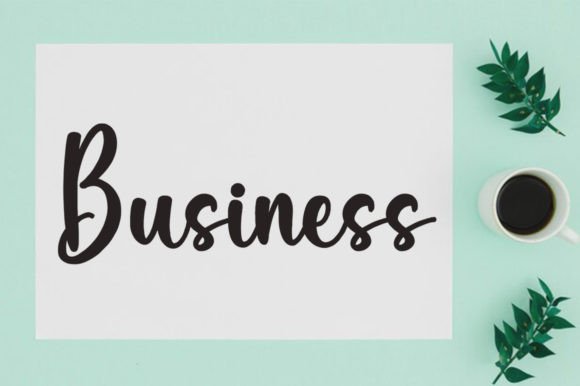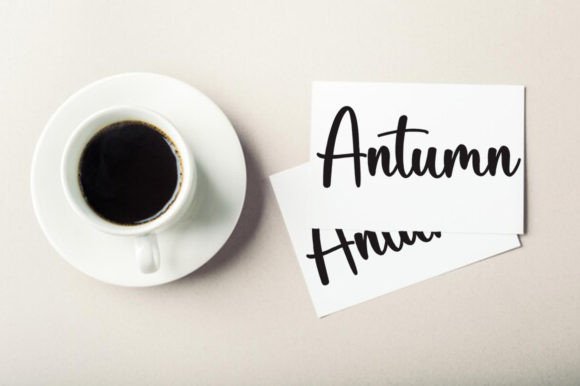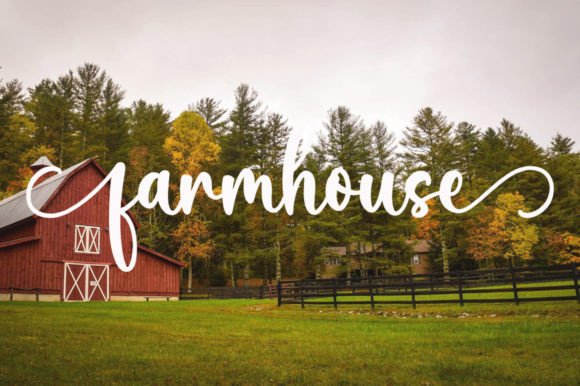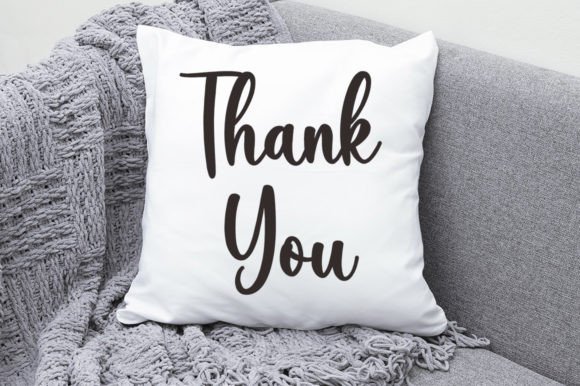
About Handmade Font Download
The Handmade Font Download is a delicate and elegant handwritten script designed to bring a timeless charm to any creative project. With its smooth lines, flowing curves, and stunning alternates, Handmade is more than just a font—it is a design tool that elevates your work with style and sophistication. Whether you’re creating invitations, branding, or digital content, this typeface guarantees a distinct and elegant result.
A Flowing Handwritten Script with Elegant Beauty
Unlike ordinary typefaces, this Handmade script font blends modern handwritten rhythm with a refined calligraphic influence. Its flowing style gives projects a natural and warm personality, making it suitable for designs where both emotion and professionalism matter. As a result, it adapts seamlessly across different creative fields.
Special events always call for typography that expresses emotion. The Handmade Font is perfect for wedding invitations, thank you notes, birthday cards, and seasonal greetings. Moreover, its smooth handwritten strokes and graceful alternates ensure that every design feels polished and memorable.
Branding and Logo Design with Handmade Font
Typography defines how people connect with a brand, and the Handmade handwritten font is an excellent choice for boutique logos, product packaging, and promotional campaigns. In addition, its delicate handwritten flow gives businesses a unique, professional, and elegant identity.
Posters, Titles, and Editorial Displays
The Handmade Font Download works wonderfully for posters, magazine covers, banners, and book titles. Therefore, it is suitable for both large and small applications, ensuring readability while keeping its handwritten beauty intact.
In today’s digital-first world, fonts need to balance attractiveness and usability. The Handmade typeface integrates seamlessly into Instagram posts, Pinterest graphics, YouTube thumbnails, and blog headers. Its elegant handwritten rhythm ensures digital content looks engaging and professional.
Why Designers Choose Handmade Typeface
Designers often choose fonts that balance charm with practicality. Many handwritten fonts lose clarity in smaller sizes, but the Handmade handwritten script remains legible while keeping its sophisticated style. This makes it a dependable choice for both professionals and hobbyists.
Add Timeless Elegance to Your Projects Today
If you want a handwritten script that feels elegant, flowing, and versatile, the Handmade Font Download is the right choice. From invitations and posters to branding and social media, it enriches every project with classic handwritten beauty. Finally, download Handmade today and let your designs shine with grace and sophistication.